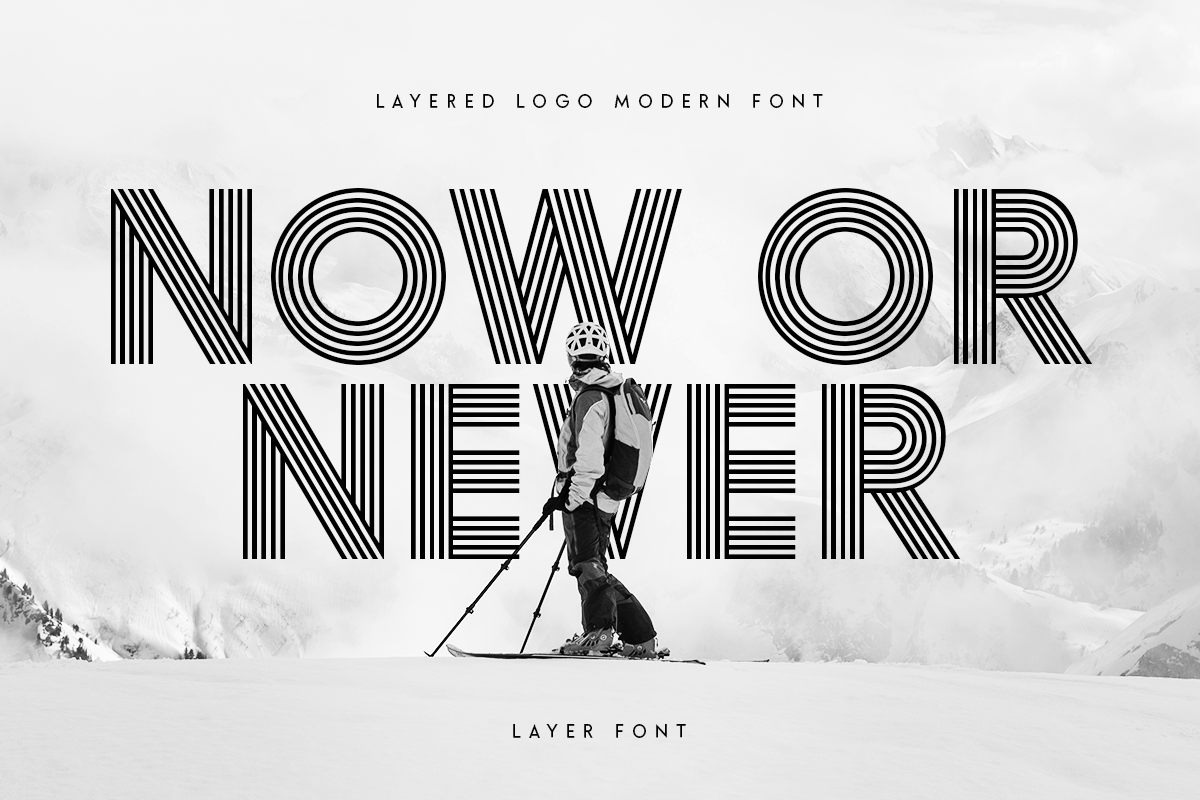
Layer - Layered Logo Modern Font
Layer delivers bold, striped typography designed to make your branding and headlines impossible to ignore. This layered logo font brings a distinctive modern edge to your typography needs, featuring striking line-based characters that command attention. Perfect for sport, technology, action, and fighting themes, Layer combines bold styling with contemporary design sensibilities. The font's unique layered construction creates depth and visual interest, making it ideal for standout branding projec...